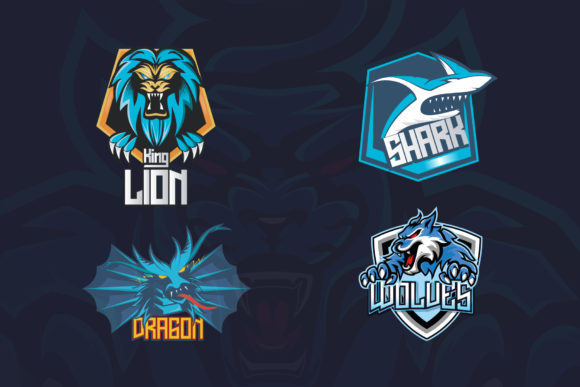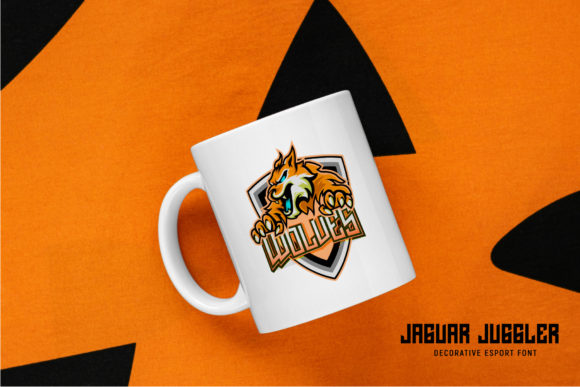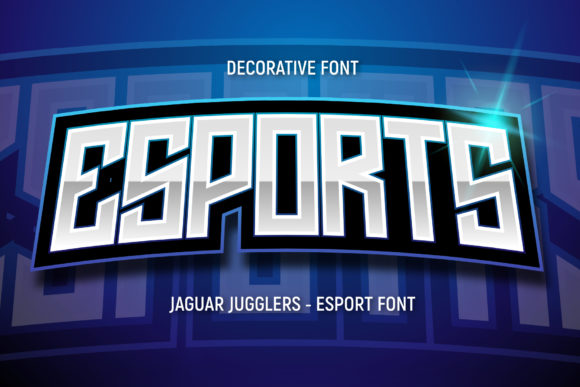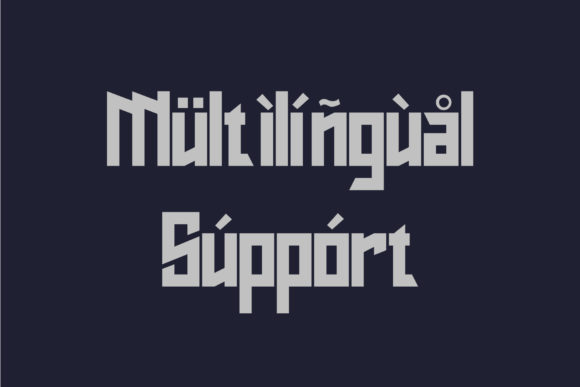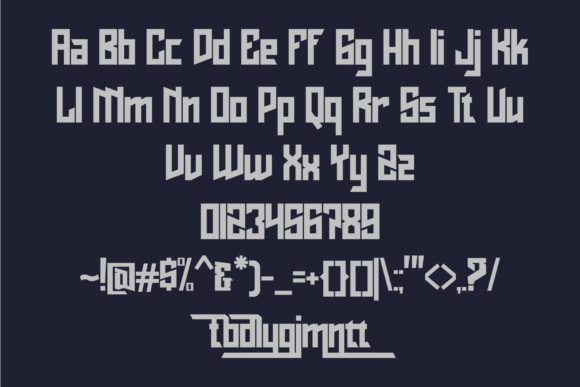
Introduction to Jaguar Jugglers Font
Jaguar Jugglers is a bold and thick lettered display font.
It is suitable for any branding, product packaging, invitation, quote, t-shirt, label, poster, logo that you wish to develop .